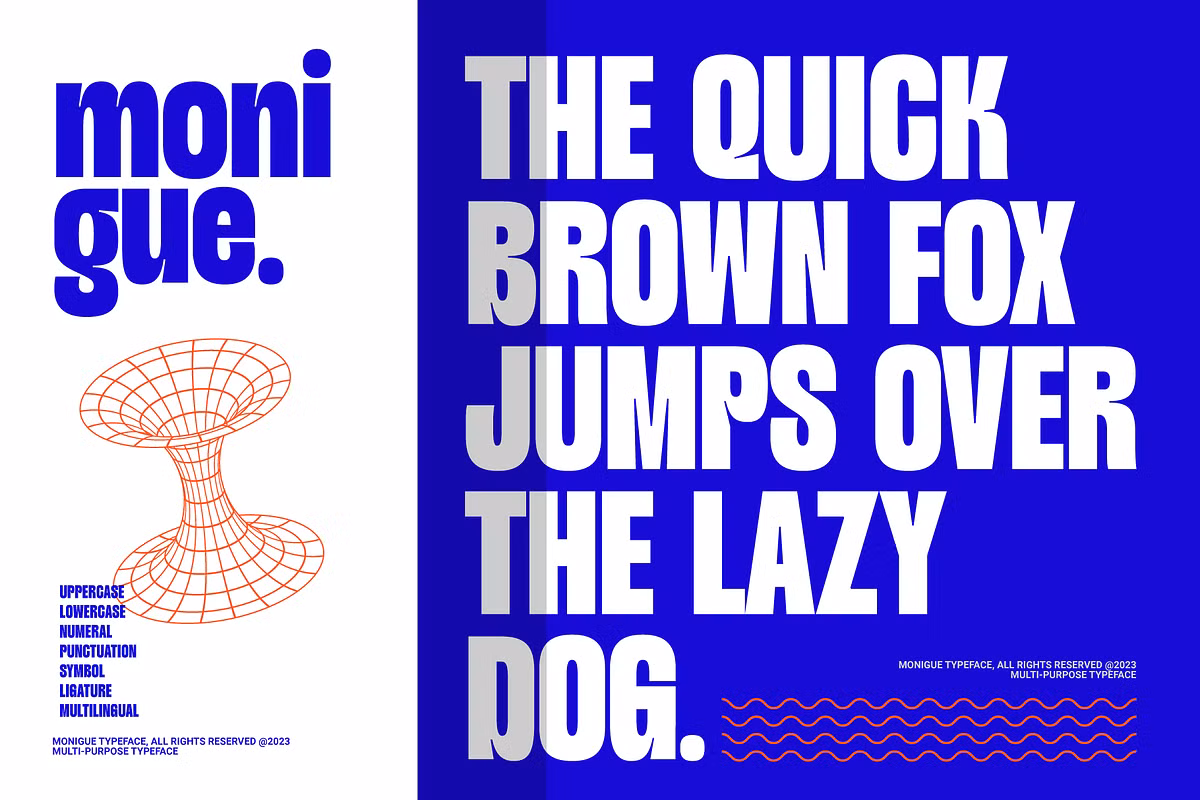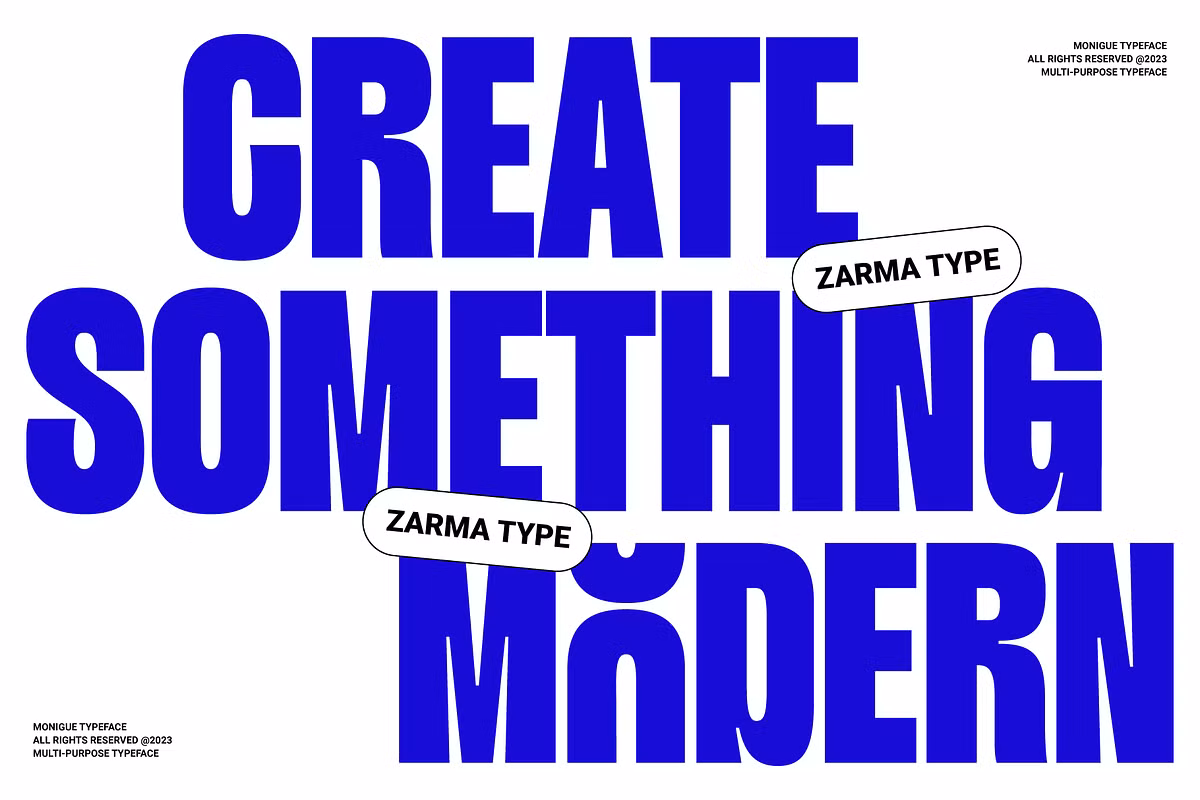
Monigue - Condensed Sans Serif Font
Monigue: Bold Condensed Sans Serif Font for Modern Design
Introducing Monigue: The Bold Condensed Sans Serif Font. Monigue is a sans serif font that catches the eye in design. Monigue pulls from the look of the 2000s and adds a fresh feel. When I use Monigue I see the text stand out. Monigue has a shape that works for design projects. Monigue helps the work speak clearly and keep the audience’s attention. Monigue works well.
Visual representation of Monigue font style
Monigue font showcased in a design context
Design Style and Aesthetic
The design of Monigue uses lines and a simple style that feels like type. Monigue has a weight that gives a sense of authority and confidence. That makes Monigue good, for display. I find Monigue works well for a poster, a website headline or an interface. Monigue’s condensed shape gives a look that catches the eye. I find Monigue appealing because Monigue is very versatile. Monigue can be bold. Monigue can also be elegant. Monigue fits smoothly into the design situations. Monigue is a sans serif font that gives the feel. Monigue works well for the use and, for the print use. I like how Monigue can do both.
Monigue has a character set with, than 370 glyphs and the set works with, over 88 languages. Monigue lets your designs talk to people who speak languages. Monigue includes letters, lowercase letters, numbers and punctuation and the font gives you ways to express yourself. I find Monigue for my projects.
Character set and glyphs of Monigue font
Character set of Monigue including various glyphs
Use Cases for Monigue
Monigue is an excellent choice for a variety of design applications. Here are some specific use cases where this font truly excels:
• Posters: Monigue is bold. Monigue helps the posters stand out. Monigue works for the event posters the promotion posters and the artistic displays.
• Website Headlines: I notice that the font has a presence. It makes website headlines grab attention and keeps website headlines readable, on any device.
• Logo Design: Monigue has a clean sans serif style. I like Monigue for logos because the clean style works well. Monigue gives a look that matches the design trends today.
• Interface Designs: When I design interfaces I find Monigue works in user interface designs. Monigue gives simple text that makes the user experience better.
Each application lets designers use Moniques attributes. Designers make work that stands out in the landscape today. I have seen how this gives designers an edge.
Monigue font used in a sample poster
Monigue font used effectively in a poster design
In the typography world pairing fonts can improve the design a lot. Monigue pairs, with typefaces and creates good compositions. I have used Monigue with fonts. I see good results. Here are a few suggestions:
• Serif Fonts: Monigue paired with a serif font such, as Times New Roman or Garamond creates a contrast. The strong contrast adds depth to the design.
• Script Fonts: For a look pair Monigue, with a script font such, as Pacifico or Lobster. Monigue and the script font together give a feel to your designs.
• Other Sans Serifs: For an clean look pair Monigue, with another sans serif such as Arial or Helvetica. Monigue and Arial or Helvetica keep the look clear and cohesive.
I notice that trying the pairings creates combinations that improve the design. The design looks clearer.
Monigue font in various design applications
Monigue font showcased across different design applications
Monigue is more, than a font. Monigue works as a design tool that can lift the projects you are working on with a look. Monigue provides the character set and the OpenType features. Monigue works across design applications. Monigue is an addition, to the designers kit. I enjoy using Monigue when I want my designs to speak clearly.